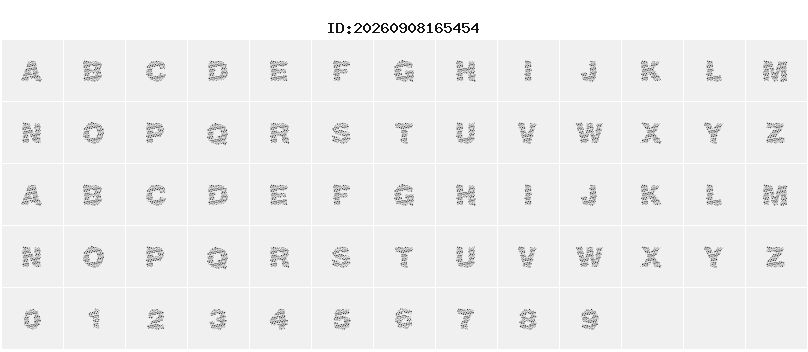
viktoria Preview
• Font Name: viktoria
• Full Font Name: viktoria
• PostScript Name: viktoria
• Character Count: 69
• Designer: prask
• Manufacturer: prask
About viktoria.ttf
viktoria.ttf is a modern, elegant sans-serif font designed for ultimate readability and visual harmony. Perfect for branding, headlines, web design, and print materials.